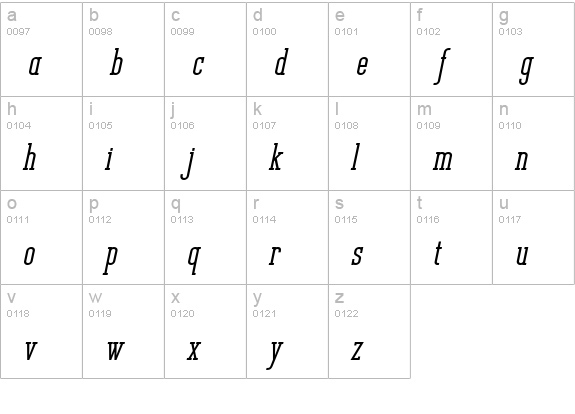
Unknown Caller BTN XBd Oblique is a distinctive, italic variant in the Unknown typeface family \xE2\x80\x94 well suited to design and typography projects.
Unknown Caller BTN XBd Oblique is a striking and unique font that will surely grab attention with its bold and slanted design. This font exudes a sense of modernity and edginess, making it perfect for projects that demand a strong and contemporary aesthetic. With its oblique style, Unknown Caller BTN XBd Oblique adds a dynamic and energetic touch to any design. Whether used for headlines, logos, posters, or branding materials, this font will make a bold statement that cannot be ignored. The clean and sharp lines of Unknown Caller BTN XBd Oblique enhance its readability, making it versatile and suitable for a wide range of applications. It can be easily paired with other fonts or used as a standalone typeface to create a visually appealing and cohesive design. One of the best things about Unknown Caller BTN XBd Oblique is that it is freely available to download at FontsMarket.com. This means that you can easily access and use this font without any cost or restrictions. Whether you are a professional designer, a student, or someone looking to add a touch of style to their personal projects, this font offers a fantastic opportunity to enhance your creations without breaking the bank. So, if you are looking for a font that combines boldness, modernity, and versatility, look no further than Unknown Caller BTN XBd Oblique. Download it today from FontsMarket.com and discover the endless possibilities it offers for your design projects.